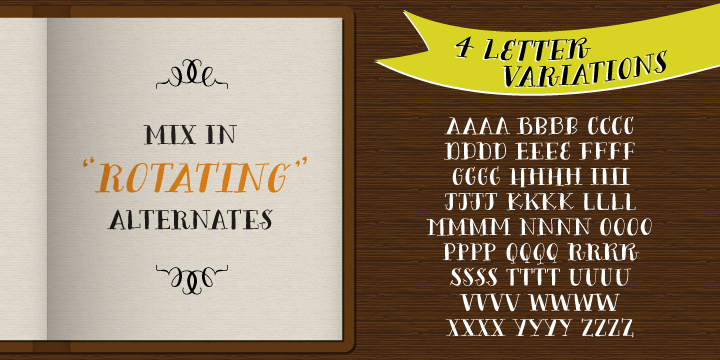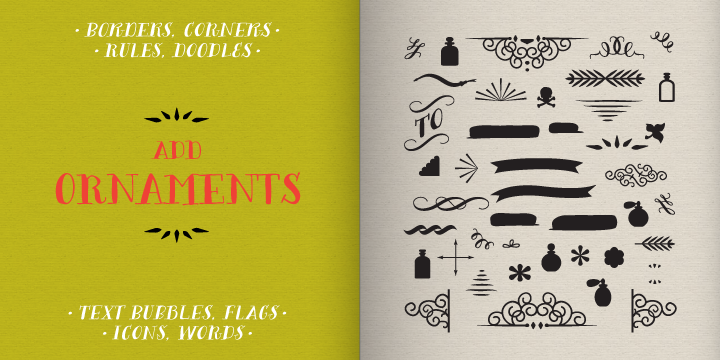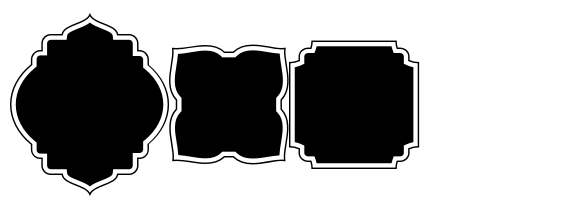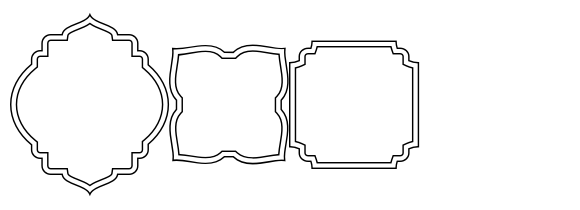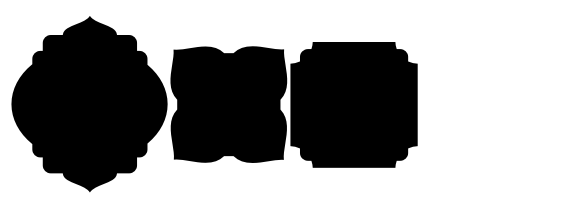
Bergamot
von Emily Lime
Die Schriftfamilie Bergamot wurde von Emily Conners entworfen und von Emily Lime veröffentlicht. Bergamot enthält 8 Stile und Familienpaketoptionen.
Bergamot was inspired by vintage apothecary labels, but this font is actually quite modern in both style and effects. It features all caps plus 2 sets of alternates (so, 4 total variations for each letter). The coolest part… they intermingle randomly as you type! Ok, so it’s not exactly random, but that’s the easiest way to explain what you'll see. The letters are actually coded to rotate with their respective alternates. This effect is both useful or can be purely for fun! Let’s talk about the useful part for a sec… Repeating characters are often a dead giveaway that a font is being used. And sometimes we don't want that, right? We want to give the illusion that our design has been custom hand-lettered for a particular project… and can't be recreated by another. That’s exactly what this font aims to do. The randomizing effect is built into the Contextual Alternates feature and will likely be “on” automatically in your chosen program. Alas, even random doesn't guarantee that like characters won't appear in close proximity. So for those of you with access to the “Stylistic Alternates” feature, easily change repeated letters that are near each other simply by turning this feature “on”. Voila! Custom…hand…lettering. Bergamot also features separate files for Frames & Ornaments. Check them out below.
Designer: Emily Conners
A southern girl who loves a challenge, Emily Conners is a self-taught type-designer whose foundry has made a big splash in the type industry in a short amount of time. The South Carolina-based designer started her career in technology sales. But after a while, she says, "I'd acquired enough graphic design skills during my career to make me dangerous. So I took a leap and started learning everything I could about design. As my business grew, so did my love for fonts.” Her foundry, Emily Lime, released its first font on MyFonts in 2011. Since then, the one-woman company has had three typefaces featured in our Rising Stars Newsletters, including hits like Peoni Pro. Other fonts of hers that have seen success include Jacques & Gilles and Carolyna Pro Black; both of which have called the Best Sellers list home for over a year. A self-acclaimed “fontaholic” (as she refers to herself in her Creative Characters interview), she has made fonts in a range of styles, but capricious scripts are what she does best. Her typeface Bombshell Pro has proven this. Not only has the typeface reined the Best Sellers list since its debut, but it has also been featured in Rising Stars and was celebrated as one of MyFonts Most Popular Fonts of 2012. The designer says that she typically sees her fonts used on websites, logos, or included in printed items like invitations.